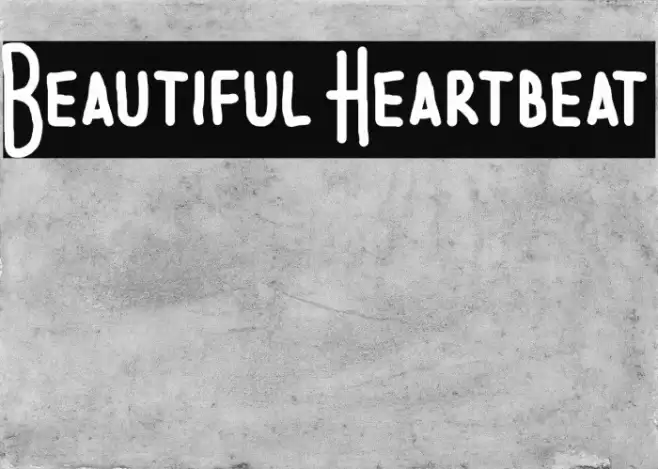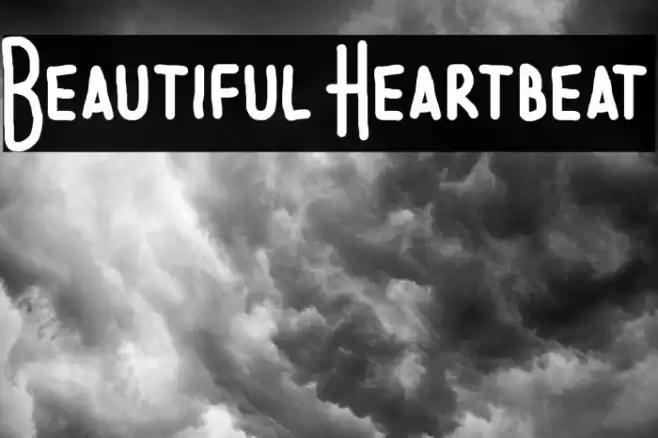
Beautiful Heartbeat Font
Beautiful Heartbeat Description
This font features a playful and casual handwritten style, characterized by its uneven strokes and organic flow. The letters have a slightly irregular baseline, giving them a charming, whimsical appearance. The uppercase and lowercase letters maintain a consistent style, with rounded edges and a friendly demeanor. The numerals and special characters complement the alphabet with similar playful characteristics, making the font suitable for informal and creative projects. Its unique personality makes it stand out, while still remaining legible and approachable.
A playful, handwritten font with a whimsical and casual style from Uncategorized fonts.
- Proposed Projects: Ideal for greeting cards, children's books, playful branding, and social media graphics.
- Overall Style: Casual, Whimsical
- Use Case: Headlines, Informal Text, Creative Projects